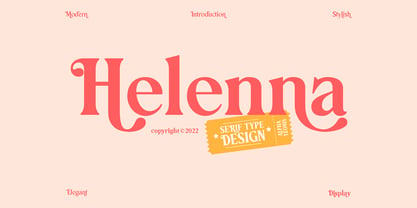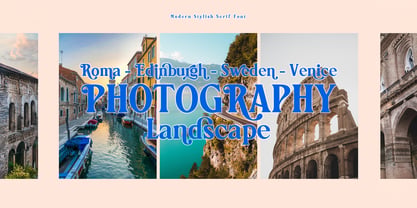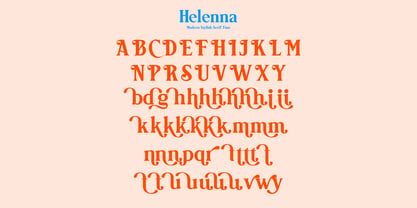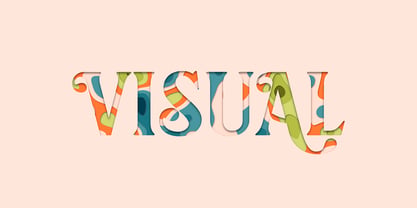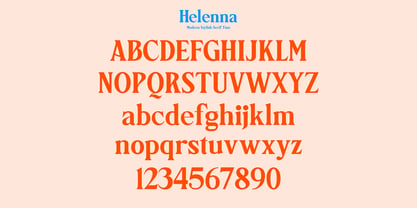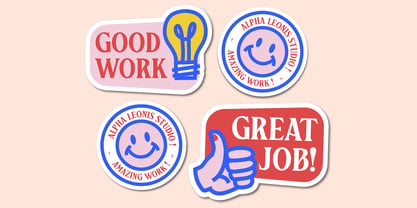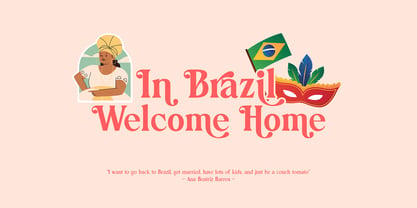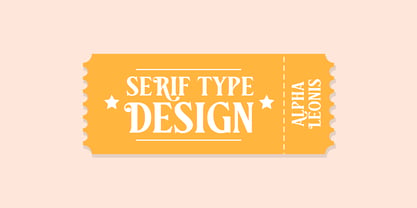
Helenna Serif
by Alphaleonis Std
The Helenna Serif Font Family was designed by Alphaleonis Std and published by Alphaleonis Std. Helenna Serif contains 1 styles. More about this family
Helenna - Modern Serif Font Introducing the new Helenna - Modern Serif Font a modern serif font !!! For those of you who are needing a touch of elegant, simple, natural and modernity for your designs, this font was created for you! Helenna - Modern Serif Font was built with OpenType features and includes ligatures, alternates, begining and ending swashes, numbers, punctuation, and it also supports your work design. The font has Great for head title, printed quotes, greeting card, invitation, wedding, events and etc
Helenna Serif